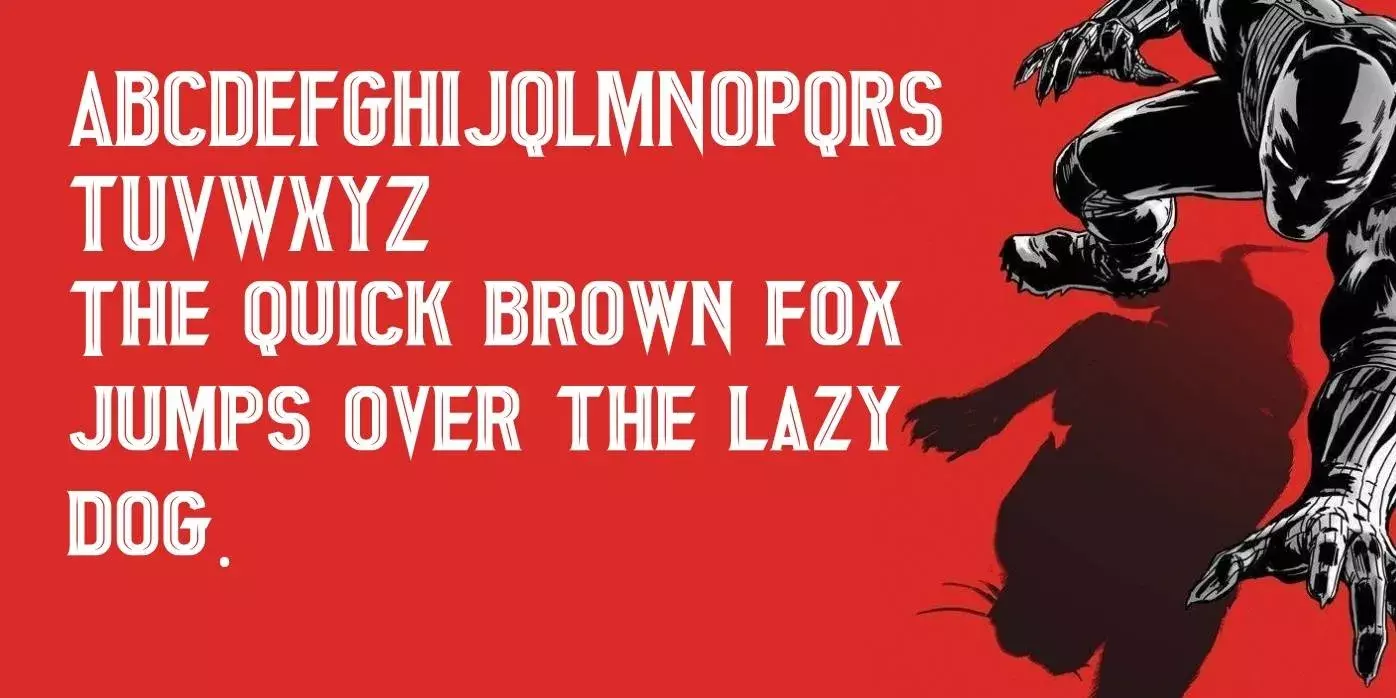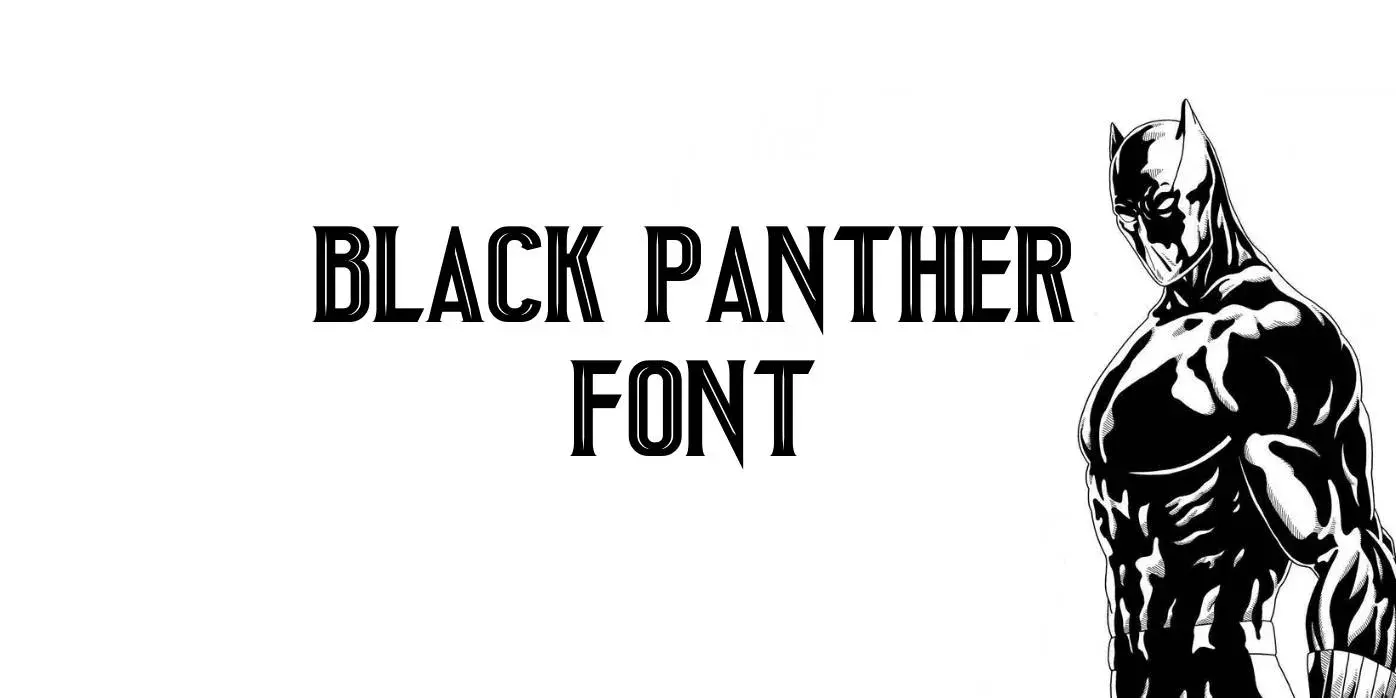
Black Panther Font
Black panther font is one of the great and stylish typefaces that belongs to a Gothic typeface family and the designer of this outstanding typeface is “Spideraysfonts”. The font family has regular style characters with uppercase letters only. This excellent font has made drastically in an outstanding type maintaining an OpenType define the shape. This font comes underneath the beauty of formidable fonts.
So, because of this selection, you may use this font for a big marketplace location. This font is carried out in reproduction and paste skills. This typeface is known for its unique text generator function. Usage The typeface is very common in every kind of design because of its eye-catchy characters and large beautiful glance.
The font is perfect for any display or web design project. It will provide a huge display result to your design. You can also utilize this great font in Logo designs, Wallpaper Design, Graphic designs, Business cards, Art & Illustrations, Homeware Designs, Headings & titlings, Story Book Covers,  Product packaging T-shirts & Mug Designs, Social media posts, Posters, and so on. This font will be advantageous for Logo design projects whether it is a Display logo or whether it is a web-based logo.
Who owns Black Panther Font? This typeface is a very beautiful and condensed characters typeface that belongs to a Gothic Typeface Family. The designer of this Typical font is Spideraysfonts. Can I use Black Panther Font commercially?